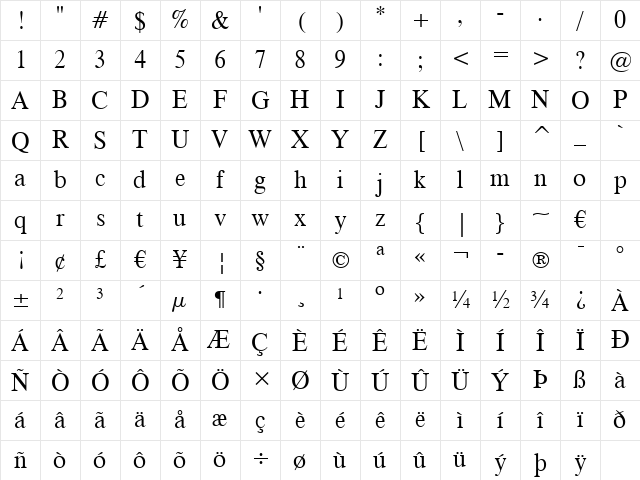
Complete Dutch801 RmHd BT Roman glyph index. Displaying only characters natively supported by Dutch801 RmHd BT Roman font.
Dutch801 RmHd BT is a composed and adaptable typeface that performs quietly and consistently across a wide range of design contexts.